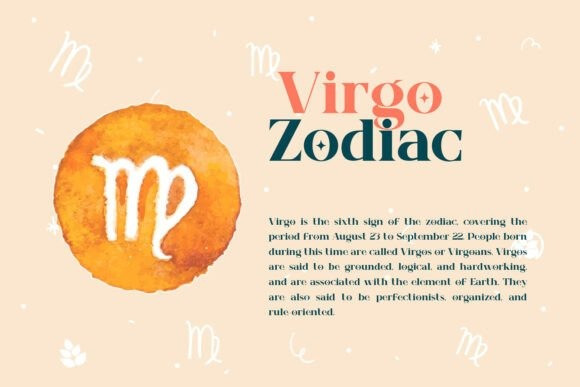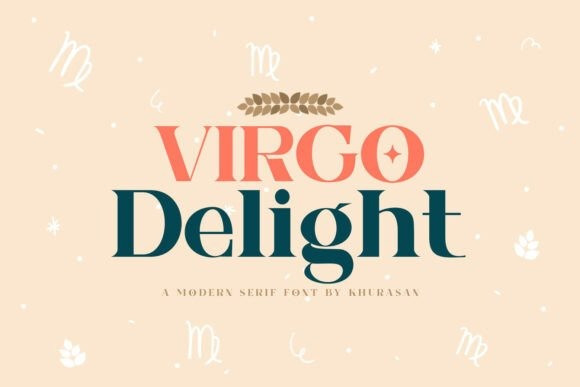
Virgo Delight Font
Virgo Delight Font is a modern serif font. It is perfect for posters, logos, magazines, book covers, banners, and many more! Get this amazing font, and use it to create lovely designs. It can easily be matched to an incredibly large set of projects, so add it to your creative ideas and notice how it makes them stand out!